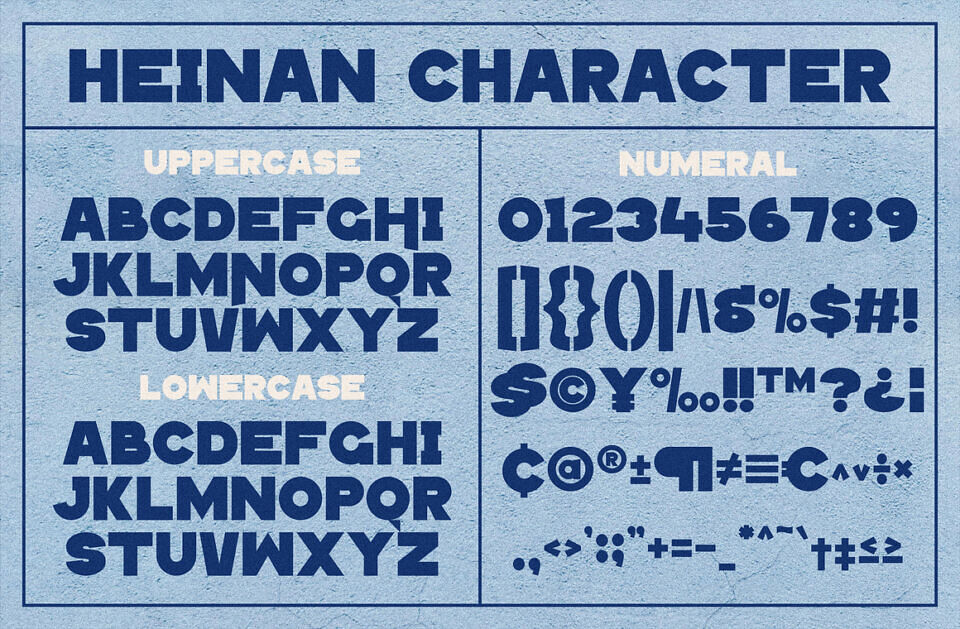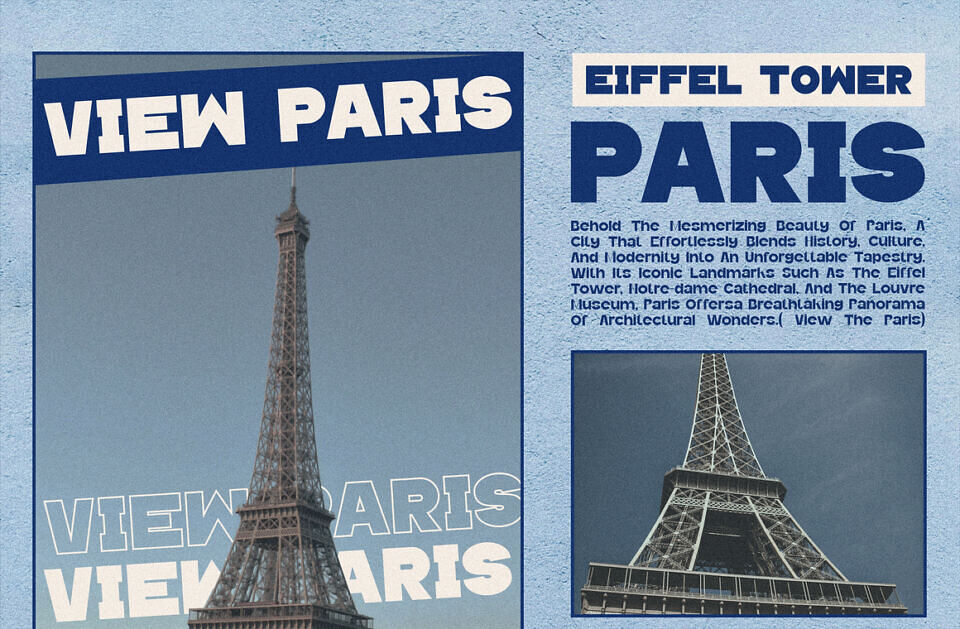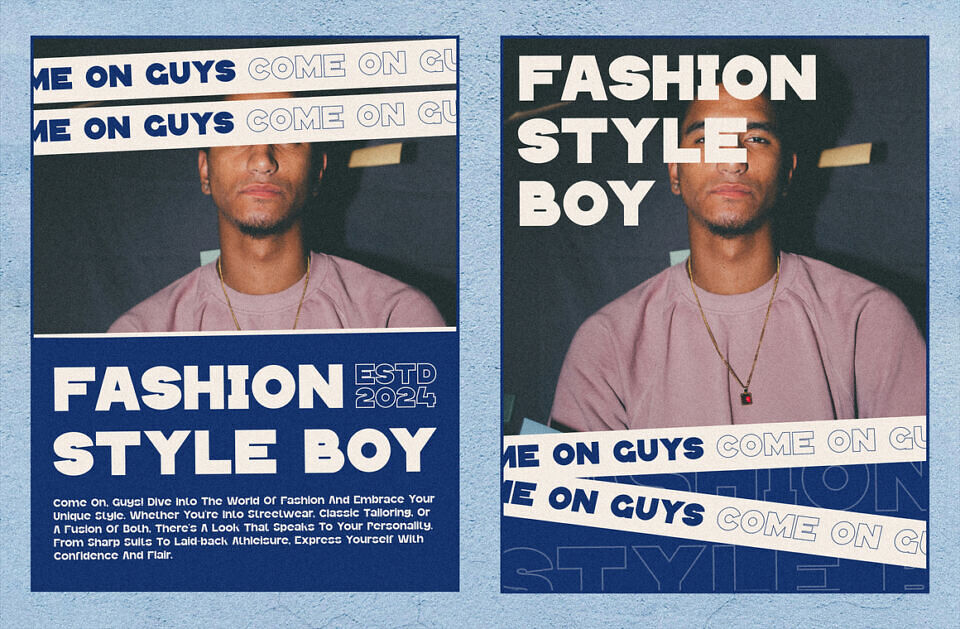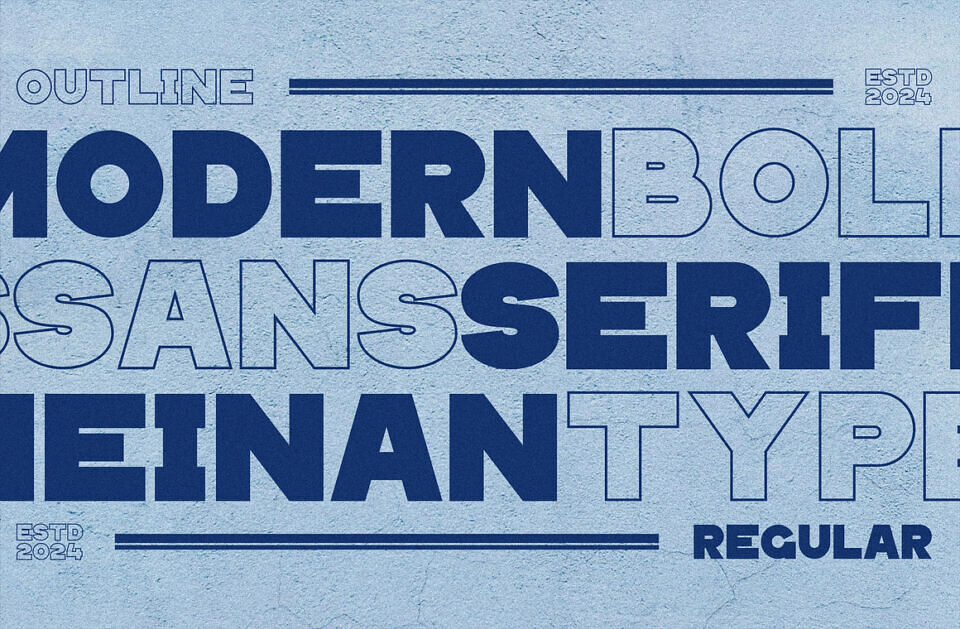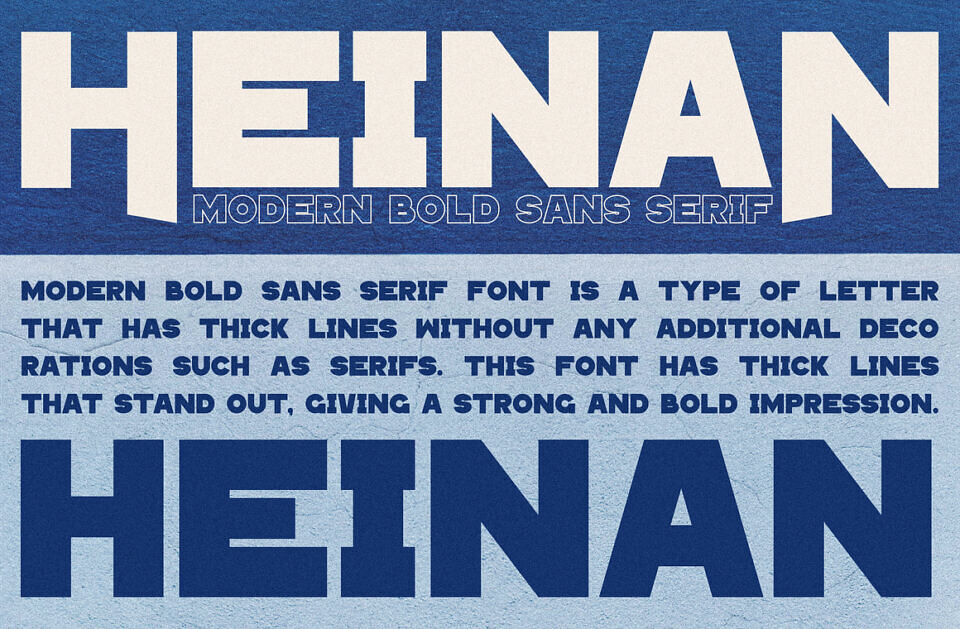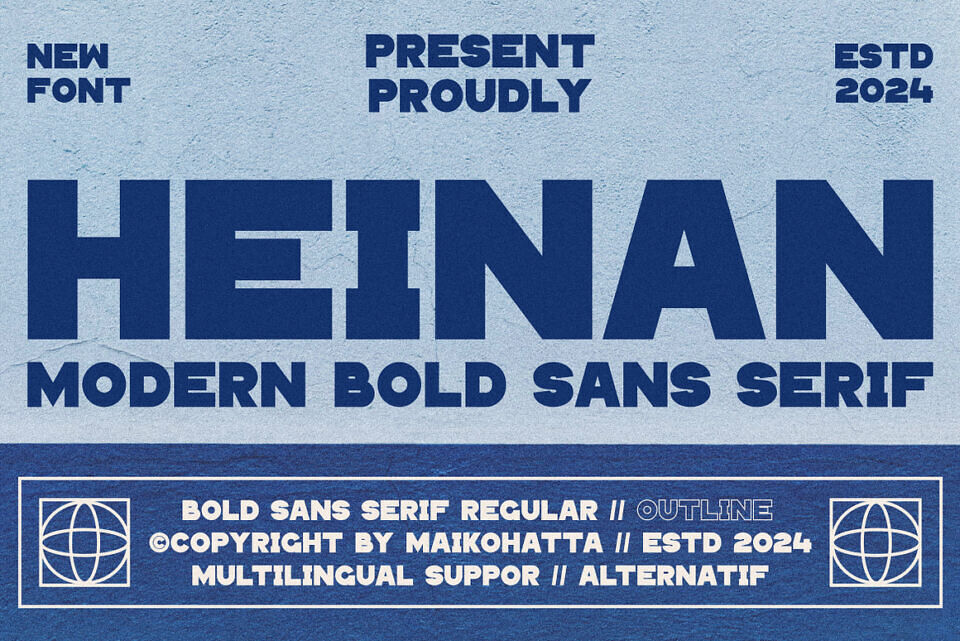
Heinan Font
Heinan Modern Font is a bold and authentic display font with two styles: regular and outline. The font is suitable for any branding project like logo, Template Design, esport, and many more. Outstanding in a wide range of contexts.
Designed by: Maiko Hatta